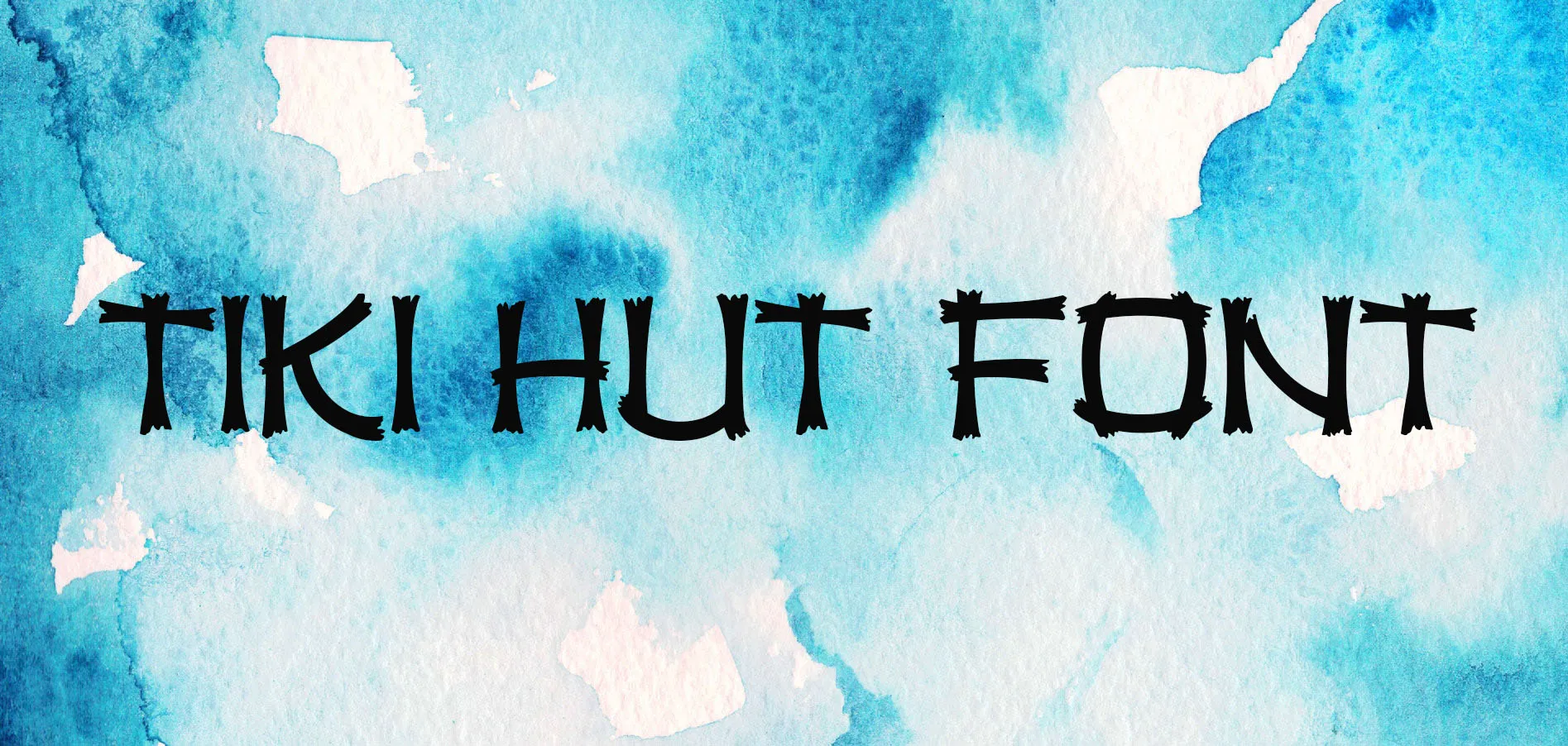
Tiki Hut Font Family is a uniquely fancy typeface featuring characters of irregular shapes, which has made it a favorite among various designers.
This font when used with dancing script font this font provides the best result for creating summer designs. The charge of styling this font has been done by Sharkshock.
Tiki Hut Font